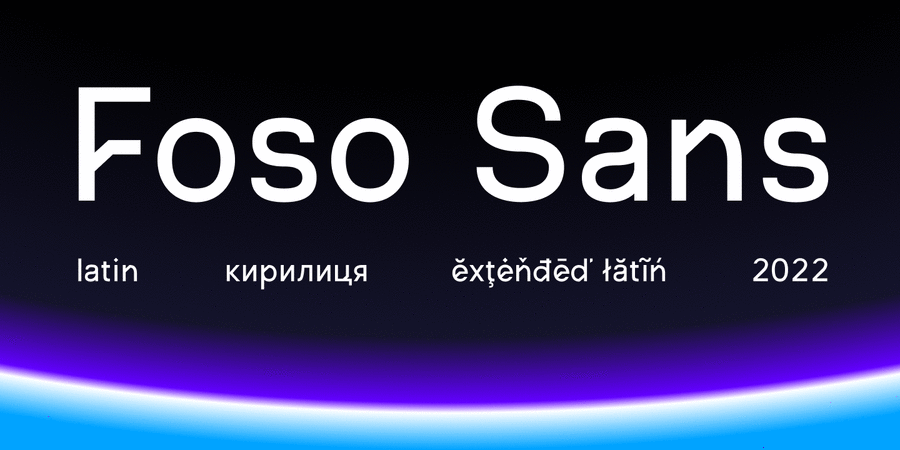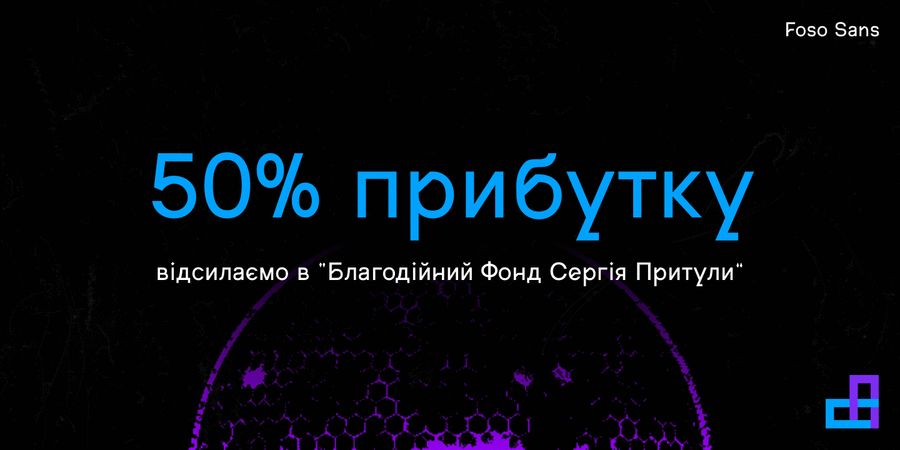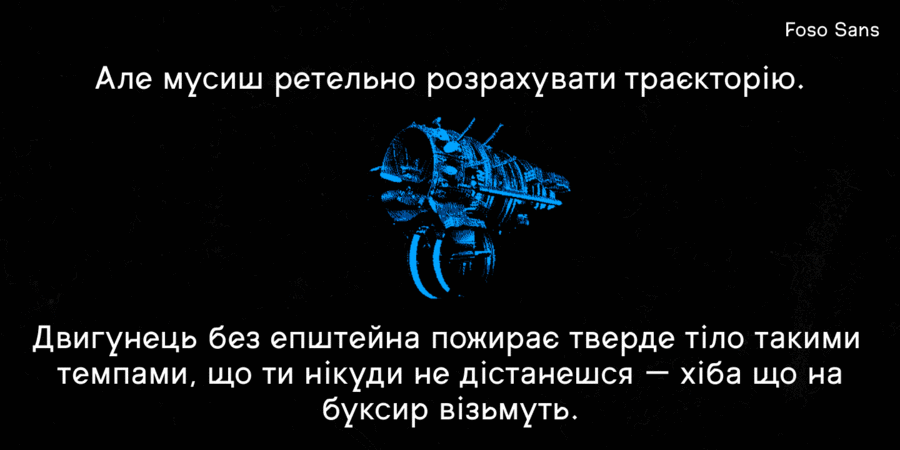
About Foso Sans is a brutal grotesk with clean forms and an emphasis on diagonal parts in combinations of elements. The font works well for headings, but remains expressive in small typefaces as well. Other styles are currently in development. Foso Sans was designed by Zhuk Denys in 2022.
Associations for font family Foso SansTypeface personality and character:
accurate, flat, convincing, rectangular, stable, solid, serious, reliable, strong, industrial, technogenic, urban, automatic, urbanistic, steel, robust, modern, artificial, cold, machine, engineering, globalized, globalistic, iron, schematic, architectural, rude, brutal, broken, futuristic, space, technically, high-quality, cutting, crisp, computer, cosmopolitan, straight, sharp, voiced, fashionable, crystal, strange, original, distinctive, icy, brumal, unusual, experimental, youth, interesting, glass
equipment, device, industry, machine tool, tool, power station, energy industry, factory, architecture, science, repairs, design, city, urban studies, engineer, automation, institute, space, gadget, IT specialist, IT, rocket, satellite, mechanical engineering, constructor, technology, scheme, architect, x-ray, hacker, sci-fi, game, car, electronics, code, computer, programming, hardware, coworking, robot, computer game, astronomy, entertainment, Instagram, scalpel, knife, physics, mathematics, winter, optics, vodka, alcohol, bar, quest Typeface associated with age: